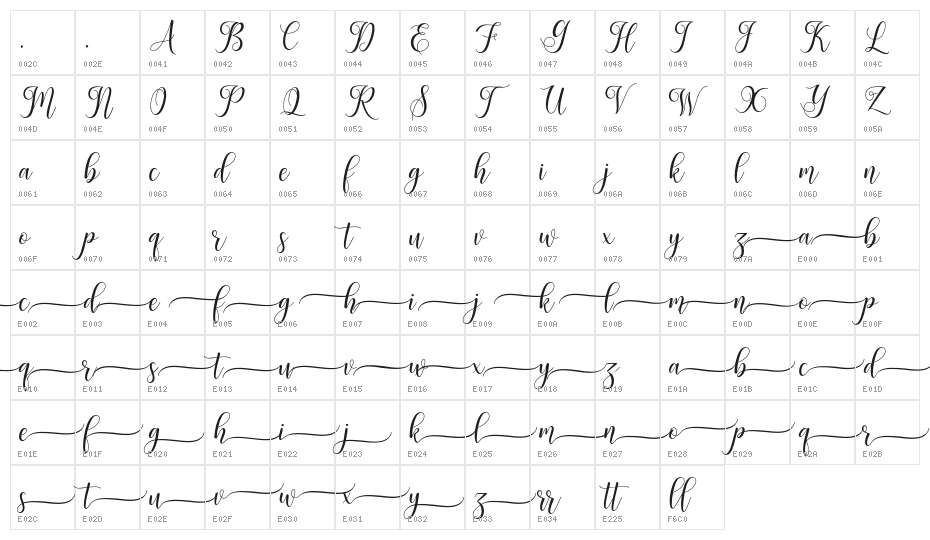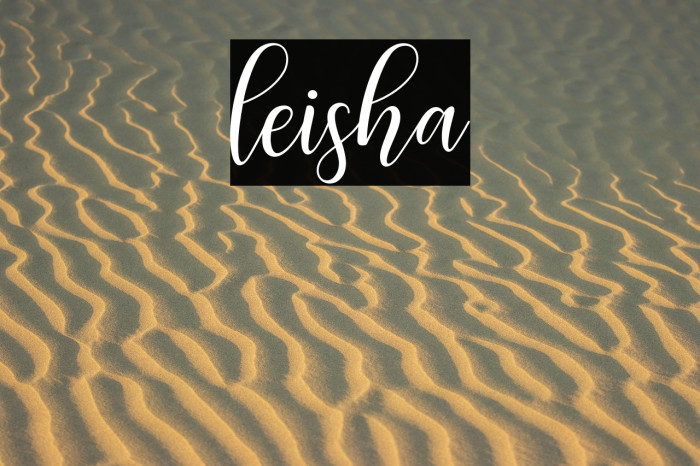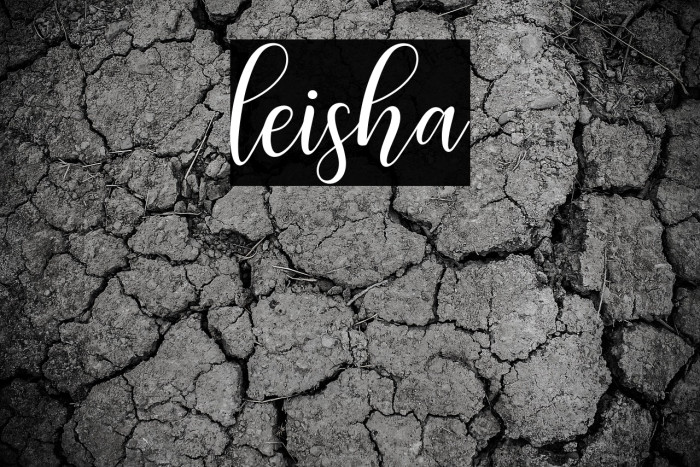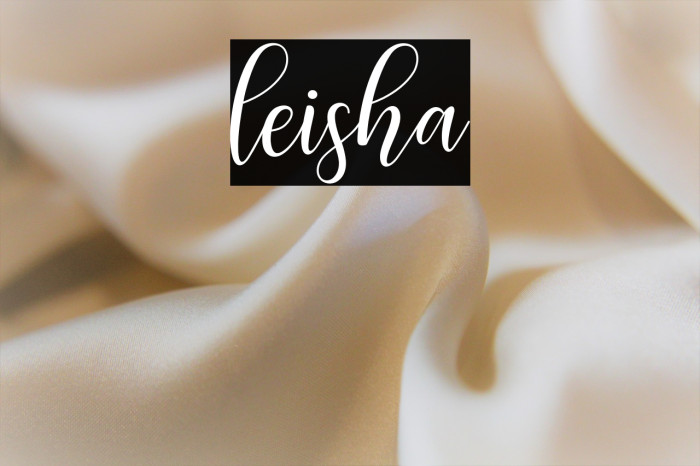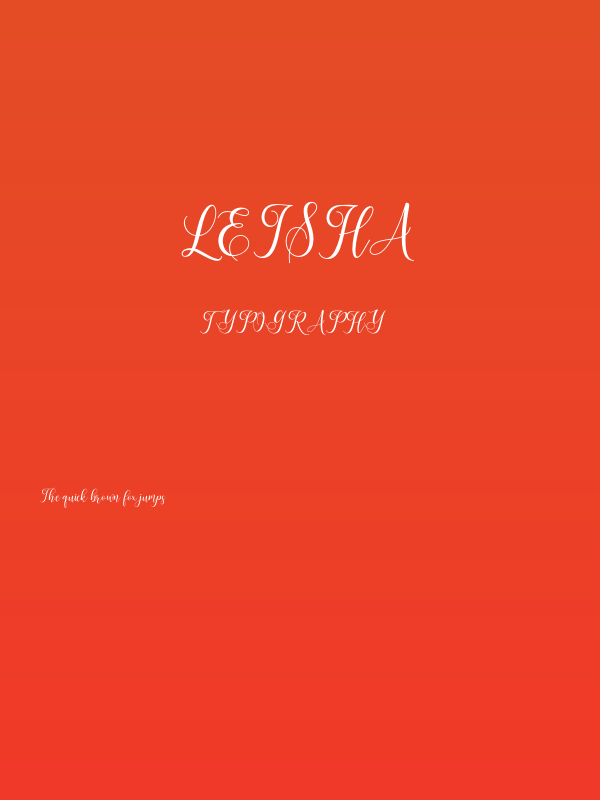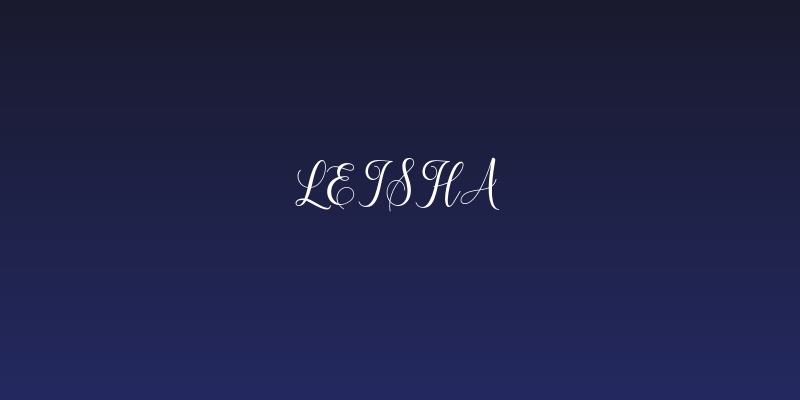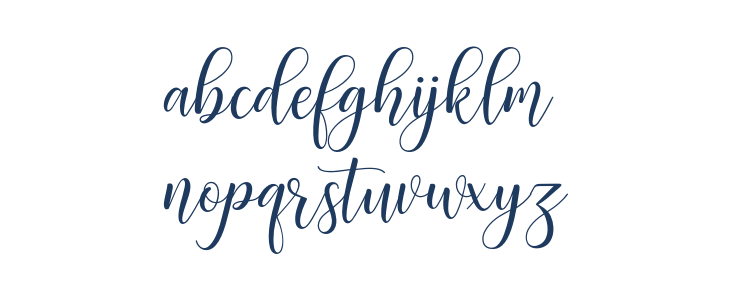
leisha Font
leisha Description
This elegant script font features flowing, interconnected letters with a sophisticated flair. The uppercase letters are adorned with intricate swashes and loops, adding a touch of luxury and refinement. The lowercase letters maintain a consistent style, with smooth curves and a graceful appearance. The font's overall design is highly decorative, making it ideal for projects that require a touch of elegance and sophistication. The characters are well-spaced, allowing for readability while maintaining an artistic look. This font is perfect for invitations, branding, and any design that seeks to convey elegance and style.
| Use Case | Invitations, Branding, Logos |
| Proposed Projects | Ideal for wedding invitations, luxury branding, greeting cards, and elegant logos. |